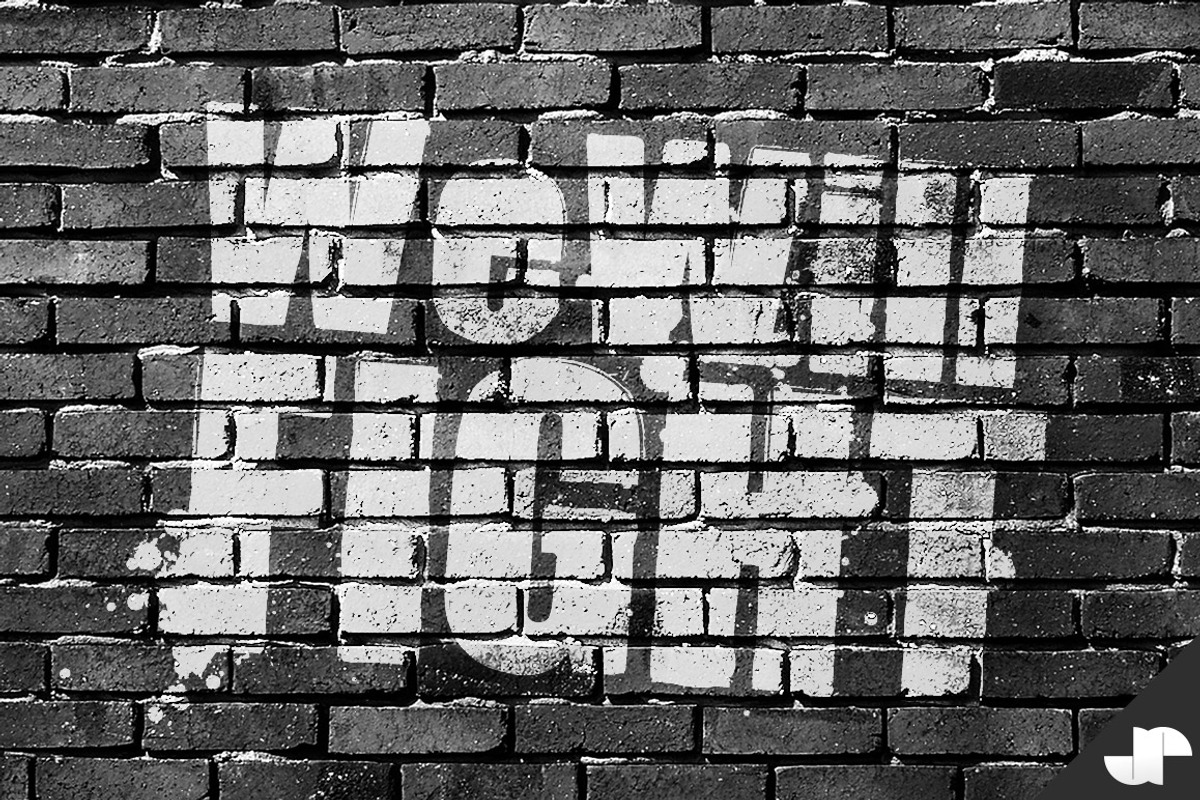
Grant - Grungy Stencil Font
Grant - Grungy Stencil Font by Jaime Radar is a font selected for branding, posters, packaging, typography.
- Includes upper and lowercase letters, and numbers.
Why Grant - Grungy Stencil Font is worth a look
Grant - Grungy Stencil Font by Jaime Radar fits naturally into Branding, posters, packaging, typography.